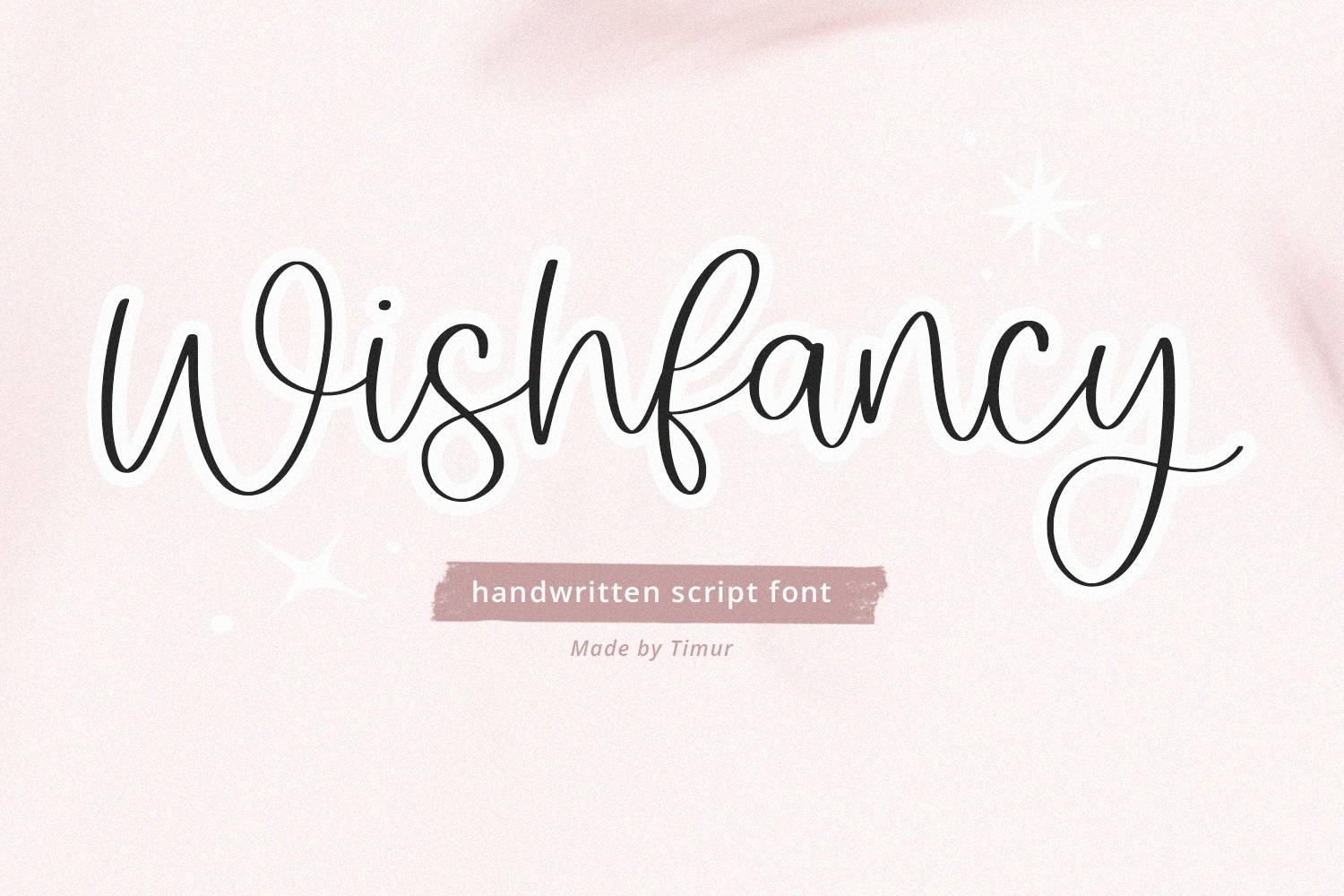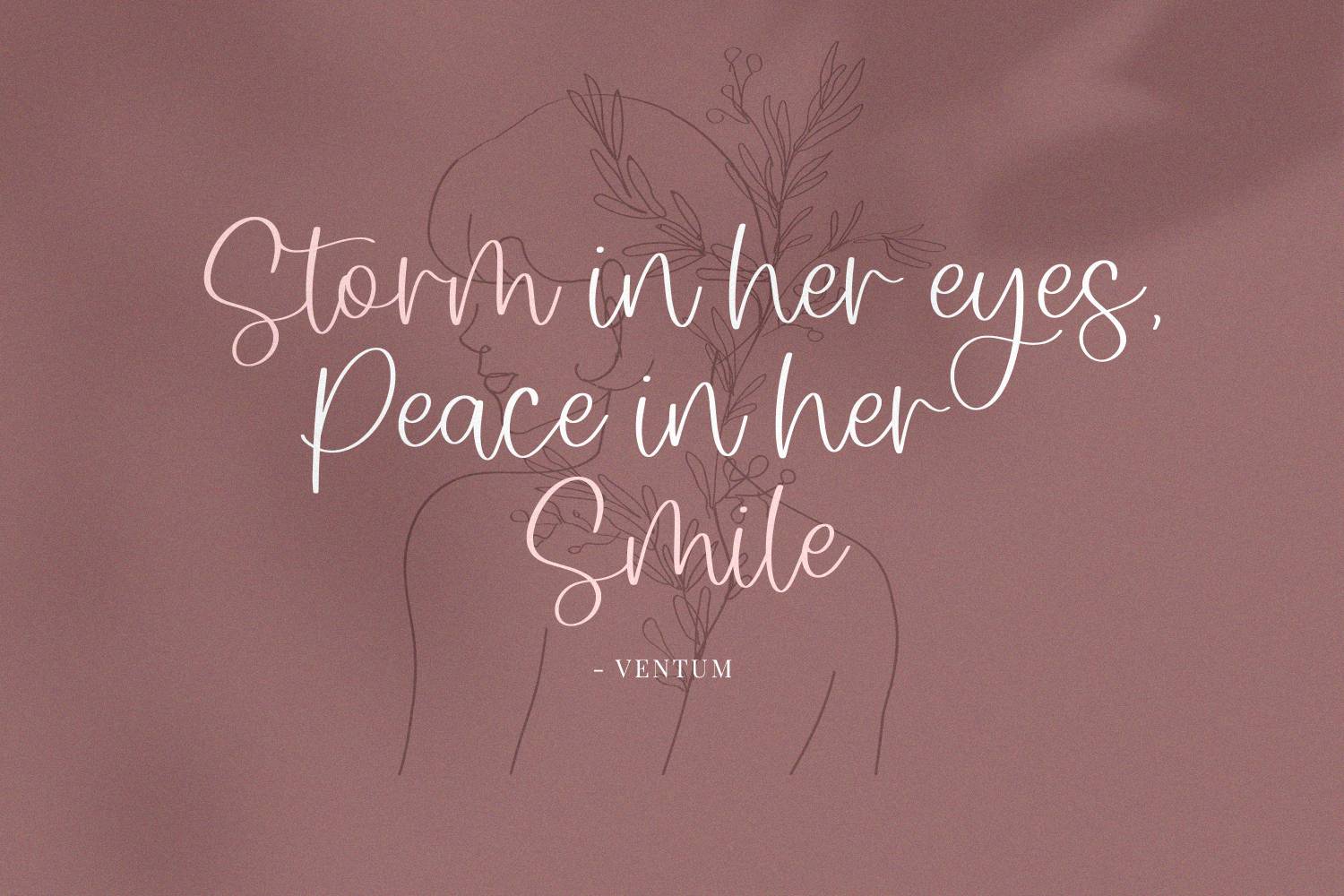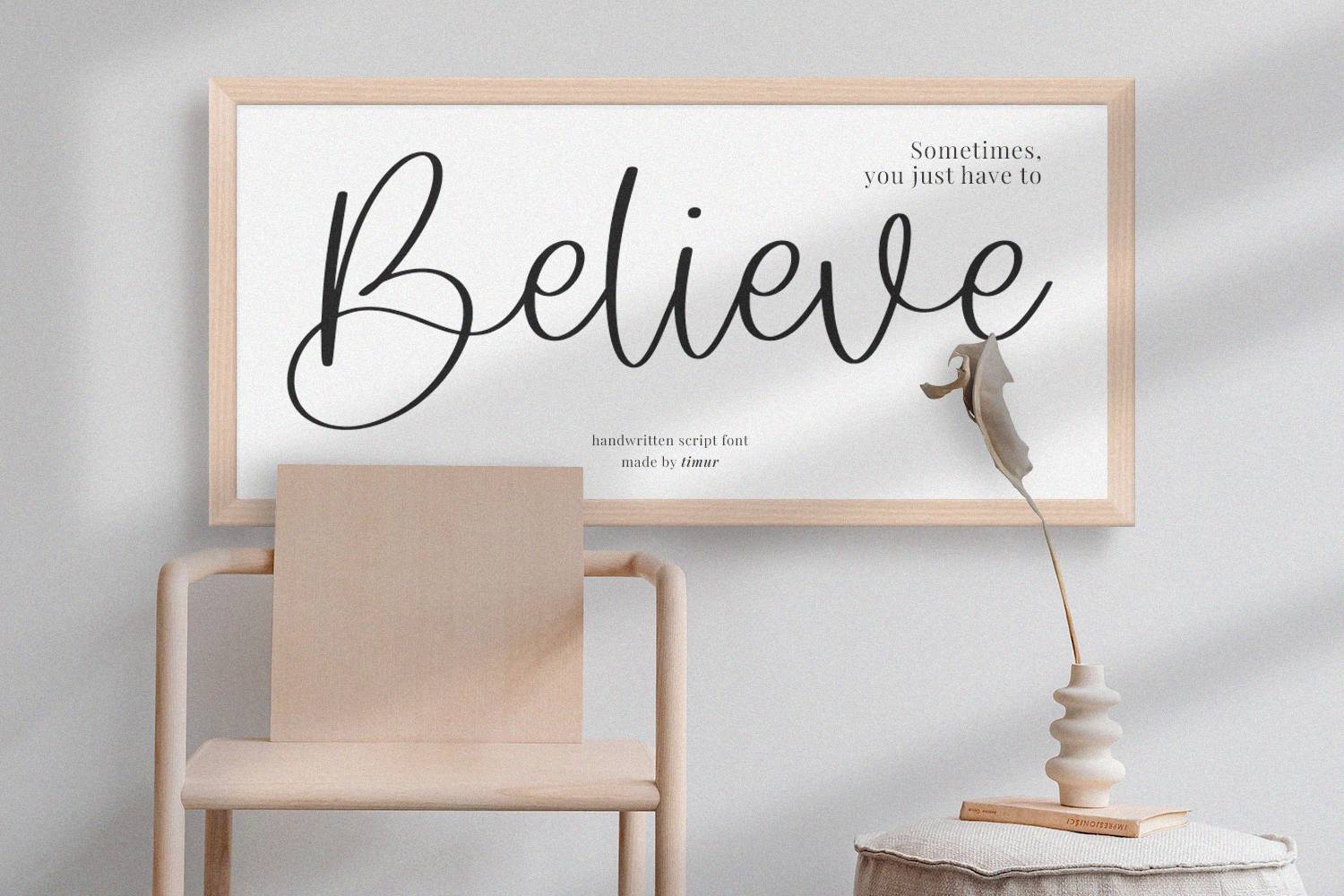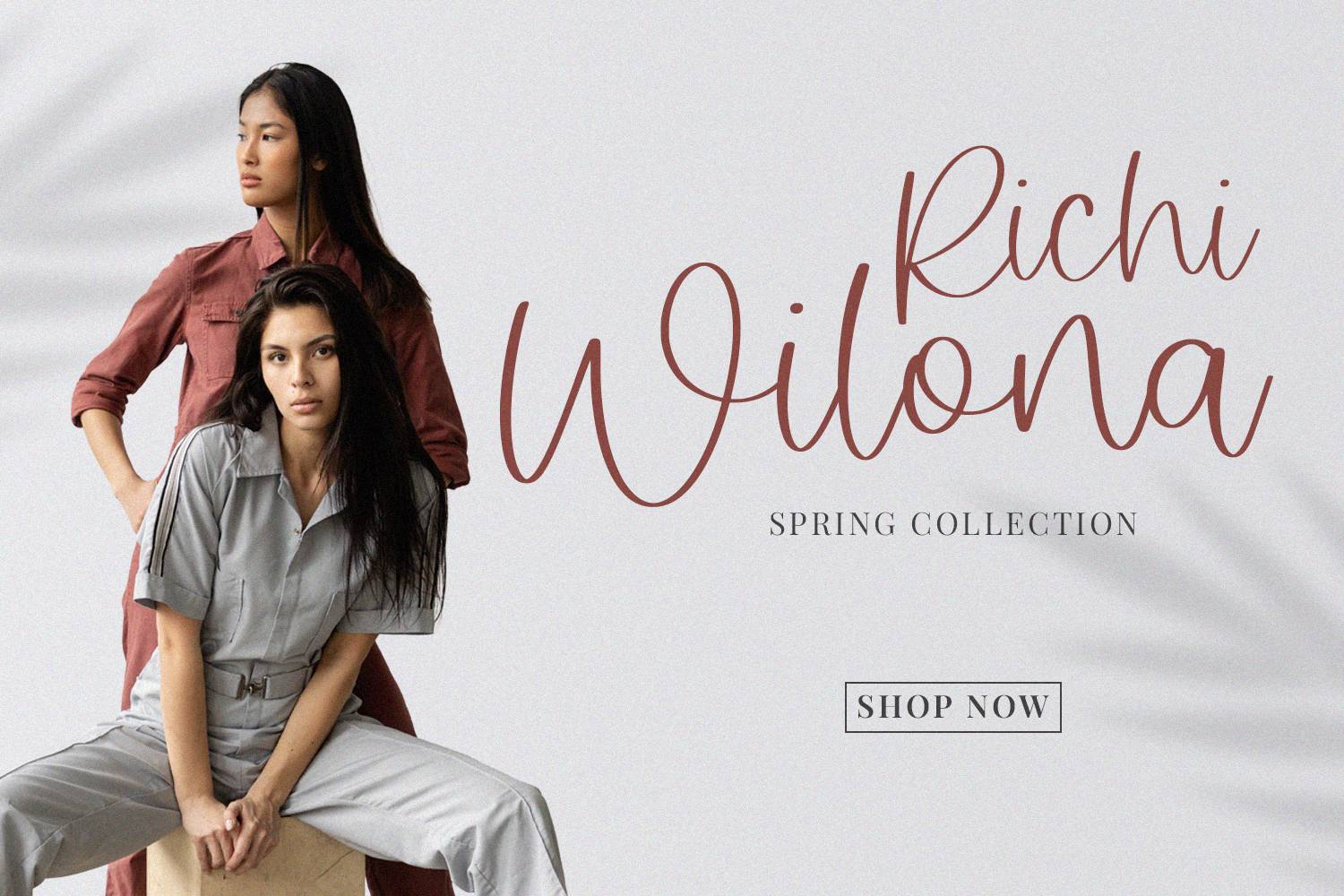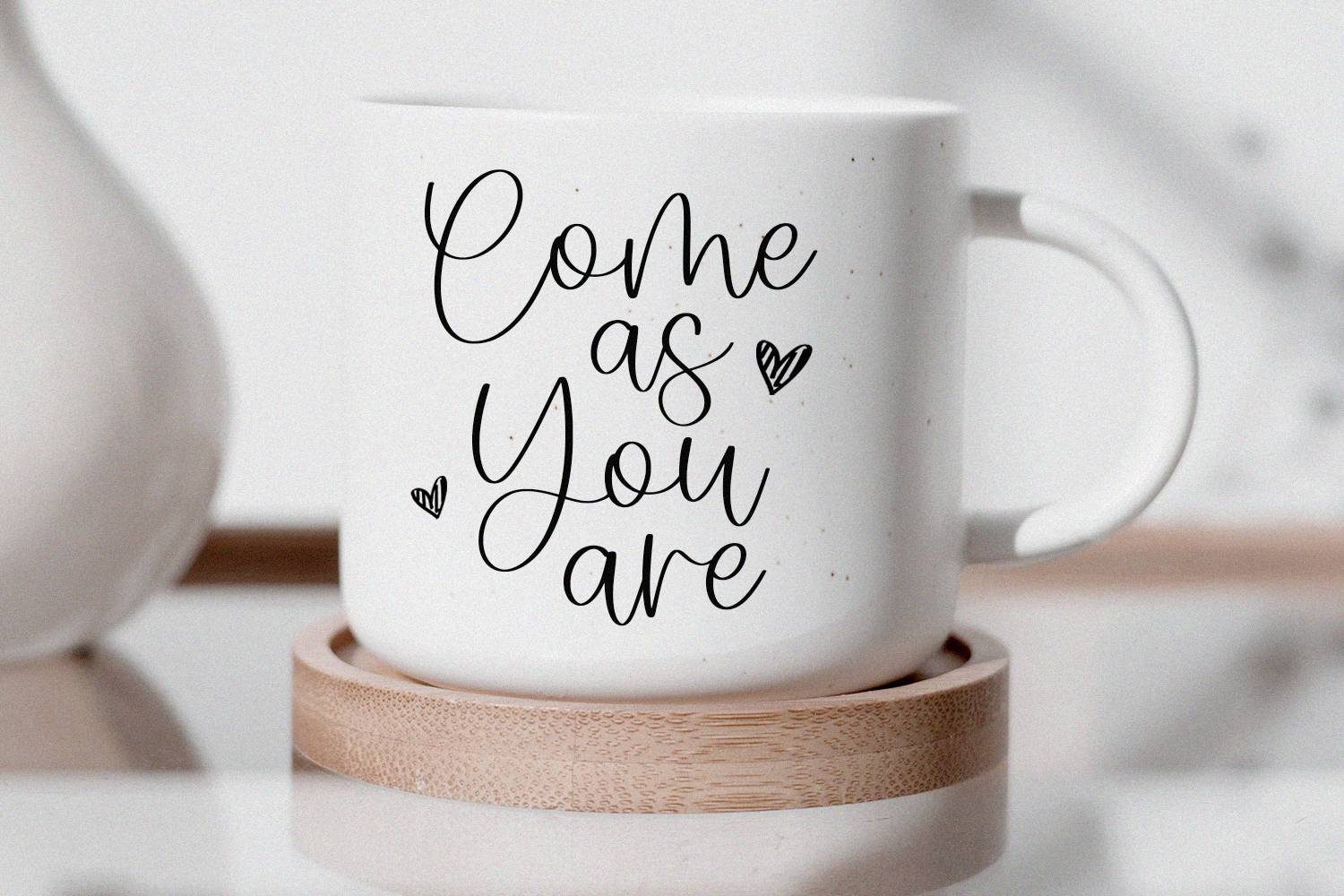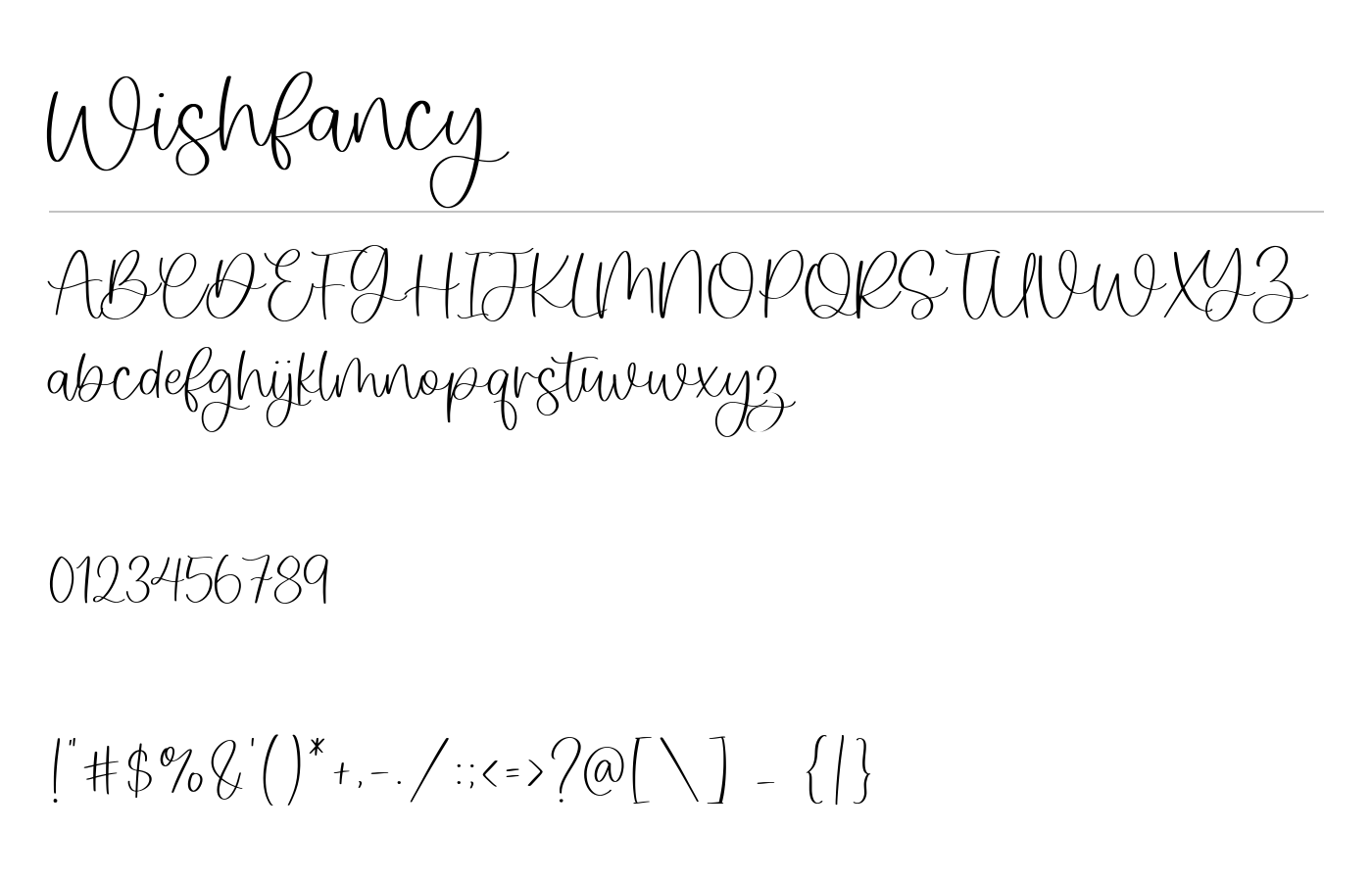
Wishfancy is a delicate, handwritten script font with thin, flowing strokes and elegant, whimsical letterforms. Its light weight and airy spacing create a charming, personal feel that is perfect for feminine branding, invitations, and creative design projects seeking a soft and graceful touch. This font works best in headlines and decorative text where its playful yet refined style can truly shine.
Wishfancy Font
About Wishfancy Font